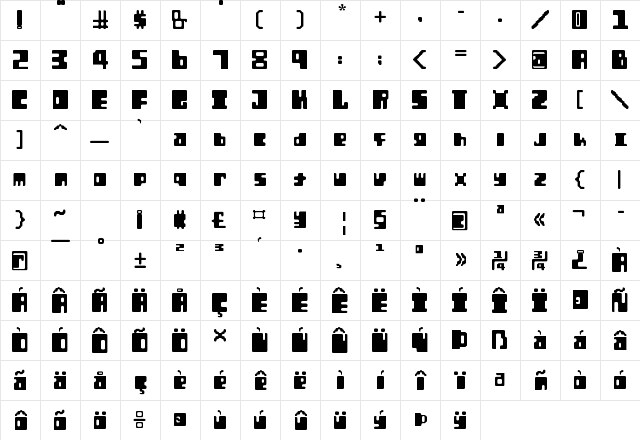
Orthotopes Regular Font Preview
Orthotopes Regular
Orthotopes Regular Font Details
| Foundry | Megami Studios |
| Designer | Rob Barba |
Design Context for Orthotopes Typeface
Orthotopes is a composed and adaptable typeface that performs quietly and consistently across a wide range of design contexts.